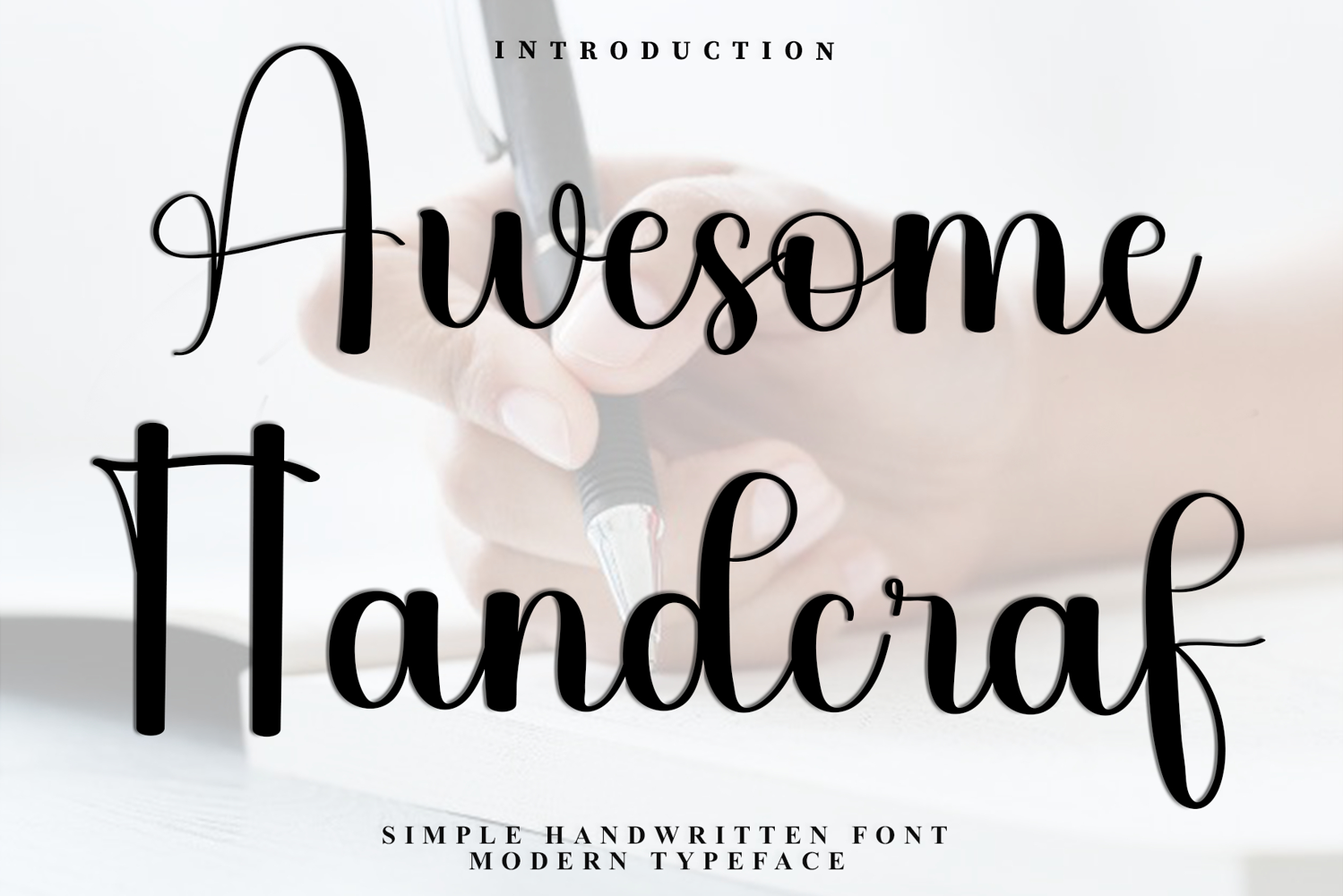
Awesome Handcraf
Awesome Handcraf is a beautiful and eye-catching font designed with a soft, unique touch. Its distinctive strokes give it a special character, making it meaningful and versatile for future use. With various characters, it’s perfect for design projects, crafts, and other creative works.